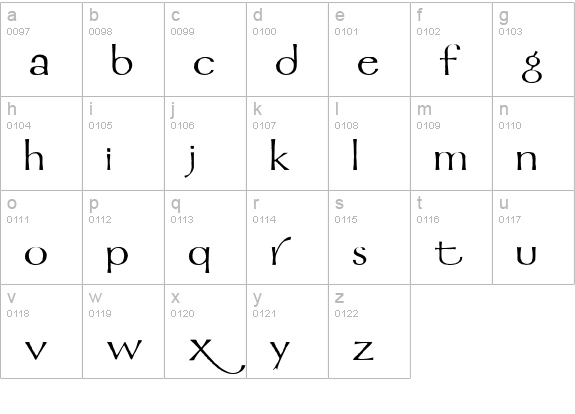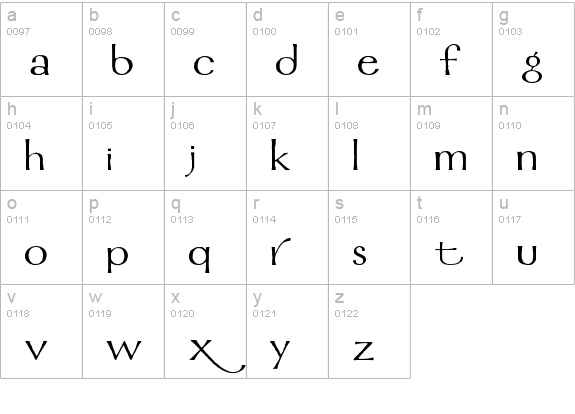
Mordred Font Details
Introducing Mordred font - a striking display typeface that effortlessly combines classic elegance with a touch of modern sophistication. Its bold lines and sharp angles exude a sense of power and authority, making it perfect for headlines, logos, and other attention-grabbing designs. What sets Mordred font apart is not only its stunning visual appeal but also its versatility. Whether you're working on a sleek corporate project or a bold editorial layout, this versatile font has you covered with its wide range of weights and styles. And the best part? Mordred font is free to download at FontsMarket.com, making it accessible to designers and creatives of all levels. Don't miss out on the opportunity to elevate your designs with this exceptional typeface. Download Mordred font today and let your creativity soar!